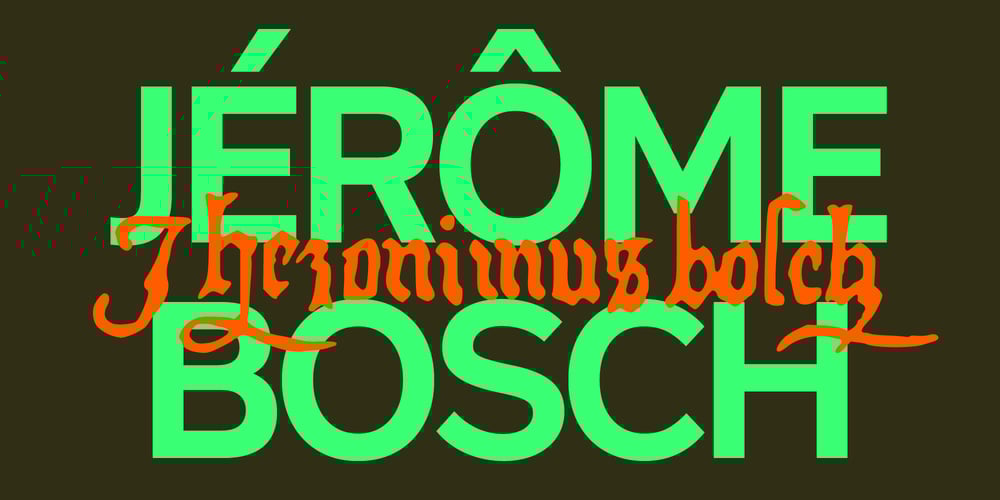
Rutan Font Family was designed by Mariya Lish and published by Inhouse Type. Rutan contains 7 styles and family package options. Rutan is a modern sans serif type family designed for pleasurable reading. Although built essentially on a geometric foundation, the typeface has been skilfully shaped into an aesthetically pleasing and legible tool. Slightly condensed and compact, it is a perfect choice for many design applications, including branding, editorial and the web, etc. Considered curves emphasise clarity and simplicity of the design, finely balancing beauty and function. Details include seven weights, 420 characters, alternative glyphs, manually edited kerning and Opentype features.